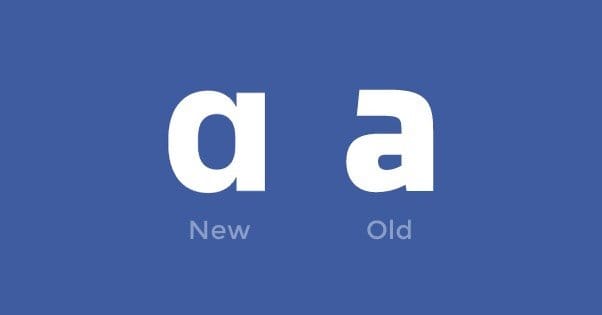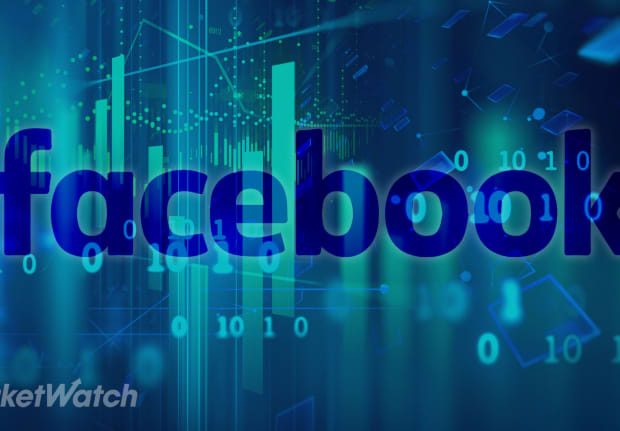
Facebook New Logo Font
A font based on the facebook logo. Follow and like famous fonts and keep up with all of the latest additions. This is a free online font changer with no need to download any software. It converts text into an array of different fonts that can be used on facebook.
This font is tagged. Whether youre after cursive text emojis or something in between were here to help you with aesthetic fonts that are simple to copy and paste. Welcome to our facebook fonts translator. The logo which features the word facebook fb in all capital letters in a new font alternates between blue green and hues of purple red and orange all colors that represent its other.
Click here to download. A gif shows the word mark displaying in different colors to represent the. Facebook is an interesting case because their font looks generic enough that it can match several different. The logo just says facebook but in a really bland and generic font that looks like it would fit well on a credit card.
Were introducing a new company logo and further distinguishing the facebook company from the facebook app which will keep its own branding. Paste it as plain text. The new branding was designed for clarity and uses custom typography and capitalization to create visual distinction between the company and app. The logo which features the word facebook in all capital letters in a new font alternates between blue green and hues of purple red and orange all colors that represent its other brands.